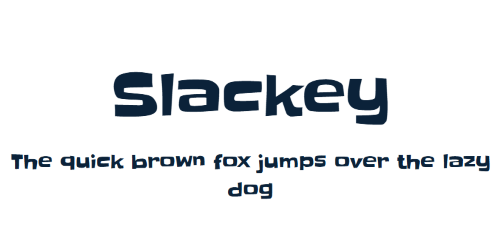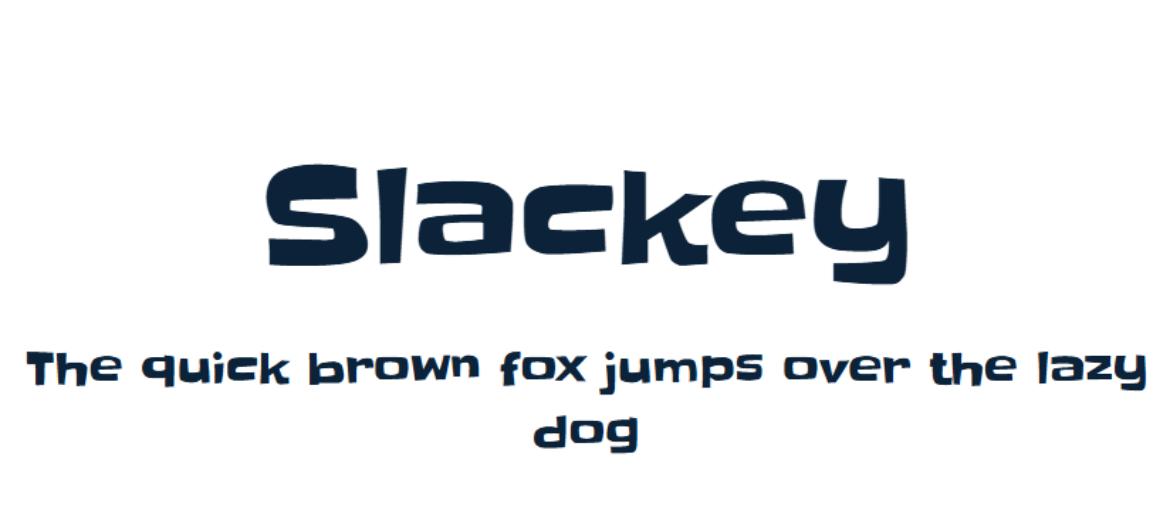
Slackey Font
Slackey Font is a playful, hand-drawn display typeface with quirky curves and a casual, creative feel. Its slightly uneven strokes give designs a fun, personal touch, making it perfect for logos, stickers, social media graphics, posters, and informal branding. Slckey adds charm, energy, and a lighthearted personality to any visual project.
➤ Font Name: Slackey
➤ Designer: Sideshow
➤ Style: Chunky